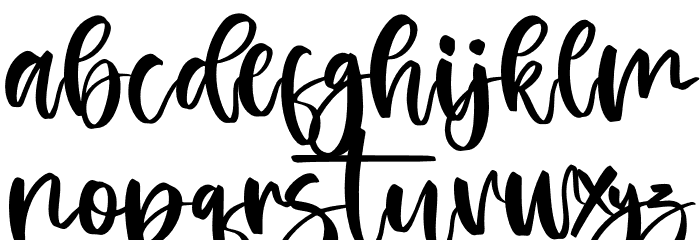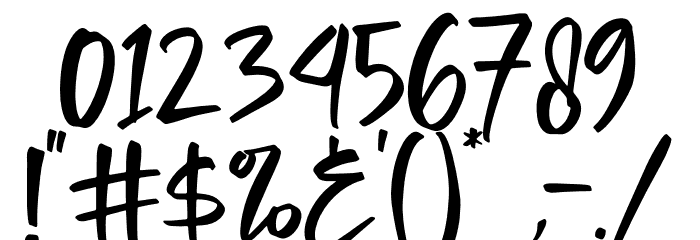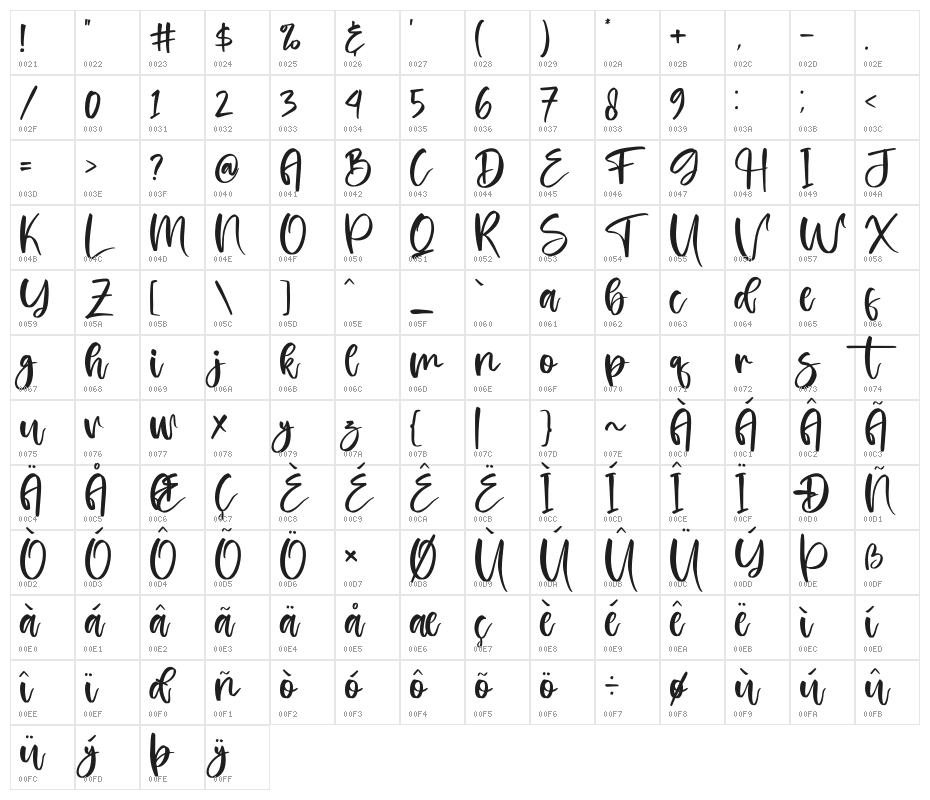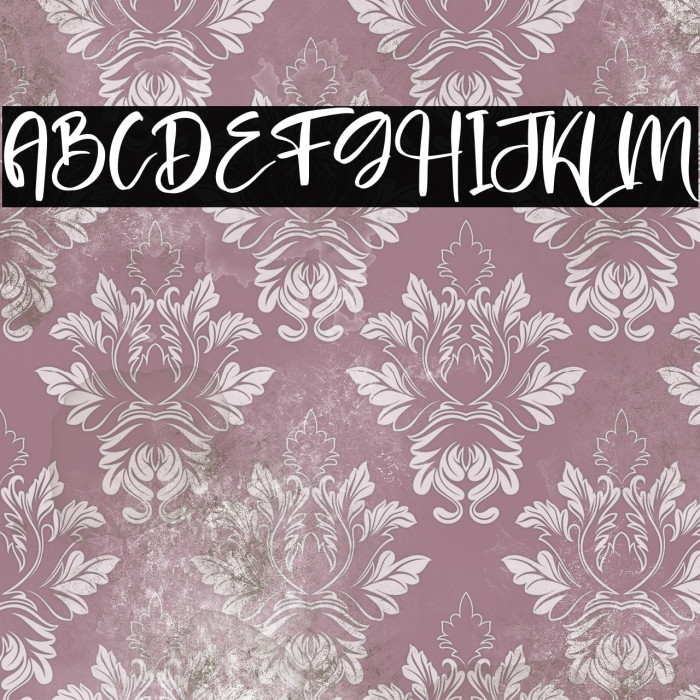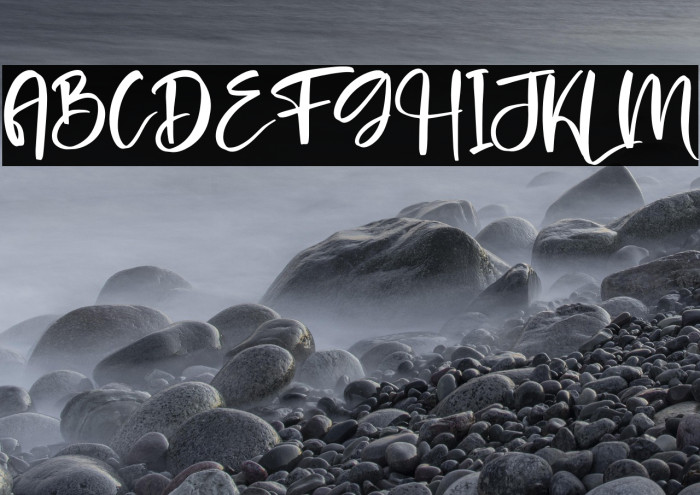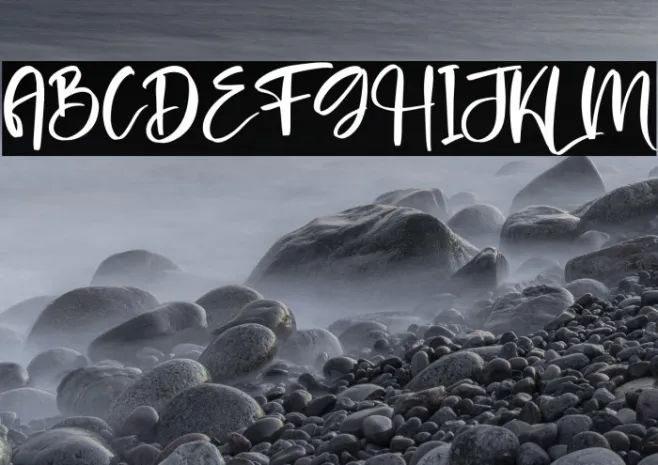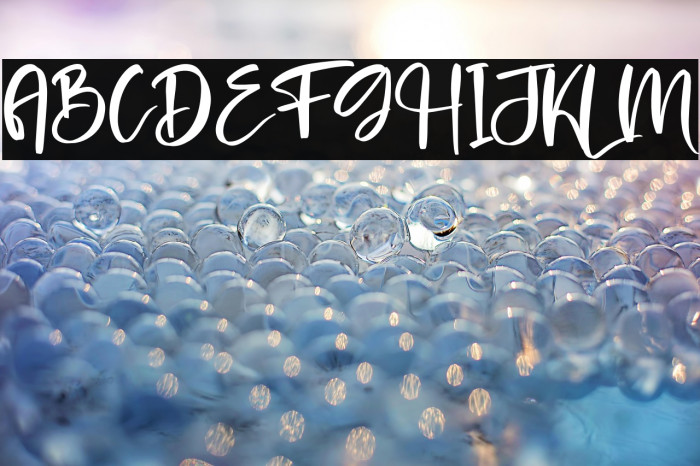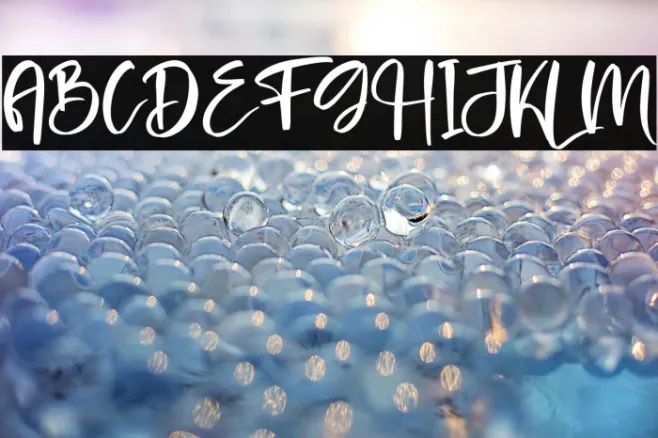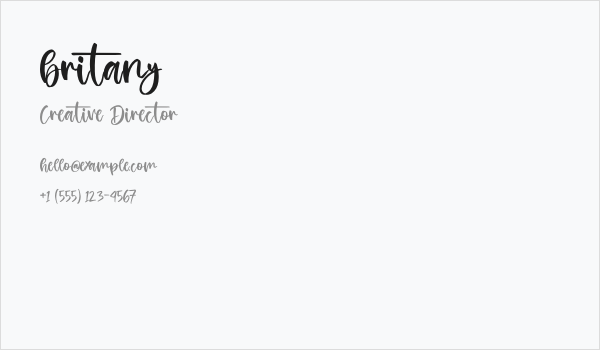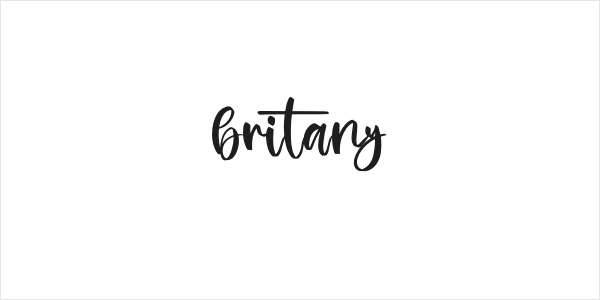
britany Font
This font features a dynamic and expressive handwritten style, characterized by its fluid and flowing strokes. The uppercase letters exhibit a bold and confident presence, with each character maintaining a unique flair. The lowercase letters continue this energetic style, offering a cohesive yet varied appearance. Numbers and special characters are crafted with the same attention to detail, ensuring a consistent aesthetic throughout. The overall design is modern and artistic, making it suitable for creative projects that require a personal touch.
A dynamic and expressive handwritten font with fluid strokes.
- Proposed Projects: Ideal for branding, invitations, greeting cards, and social media graphics.
- Use Case: Logos, Headlines, Creative projects